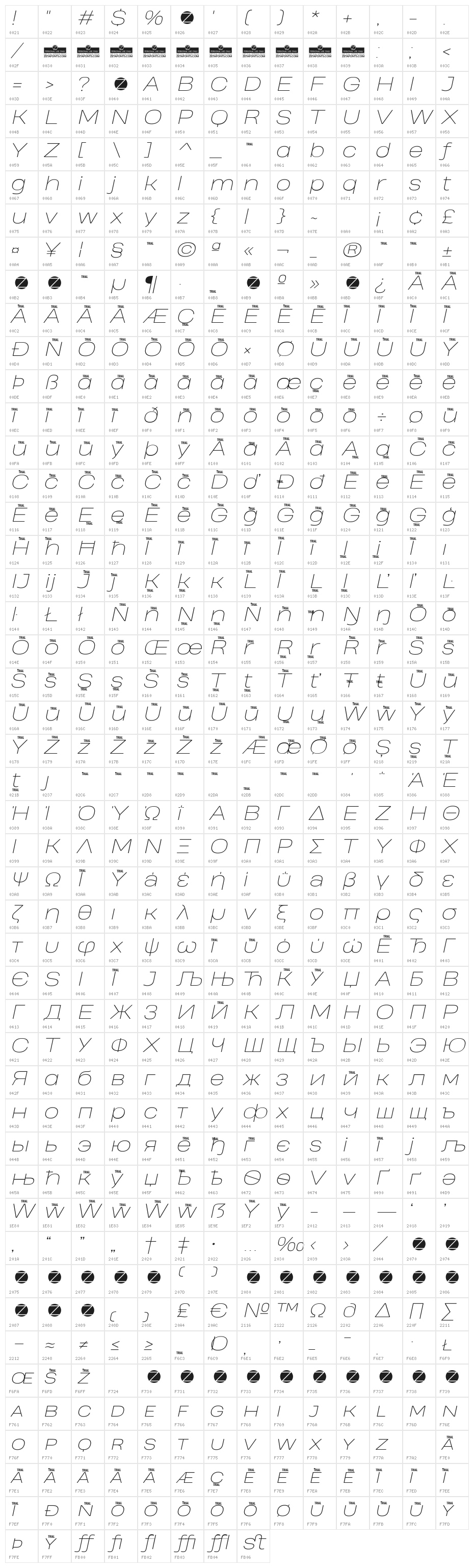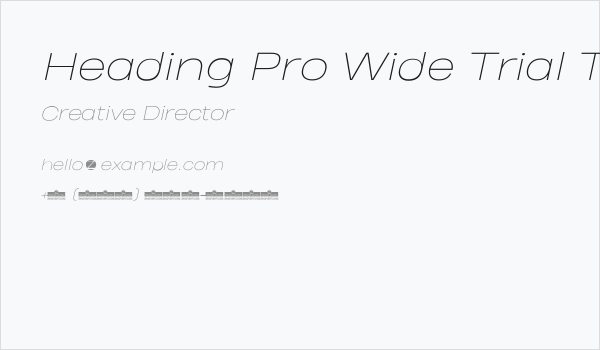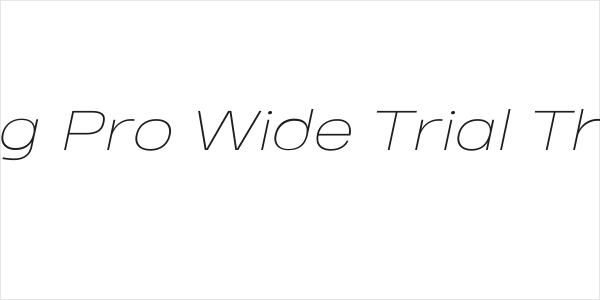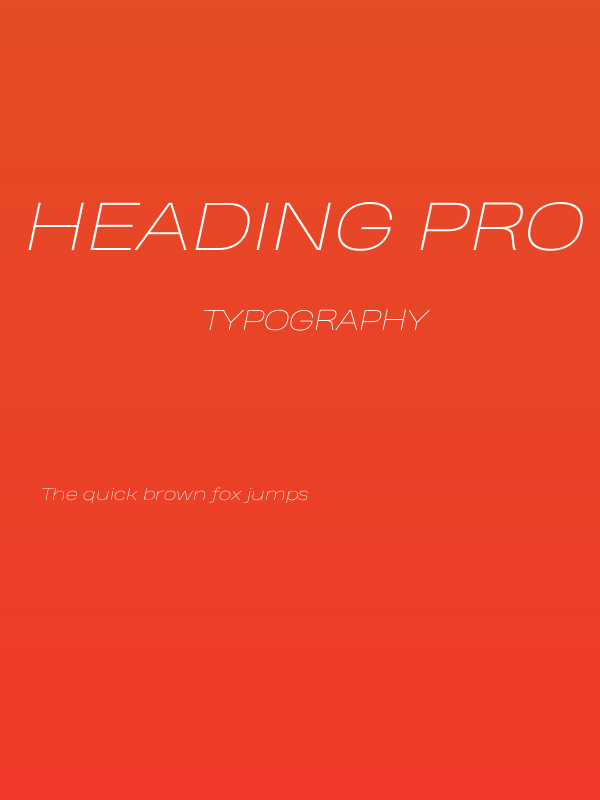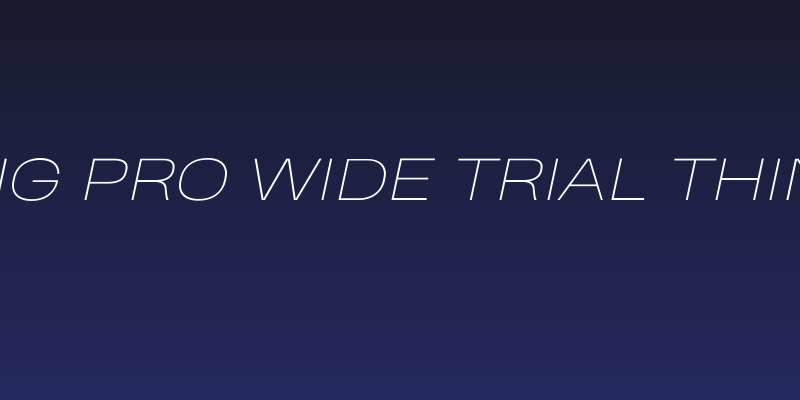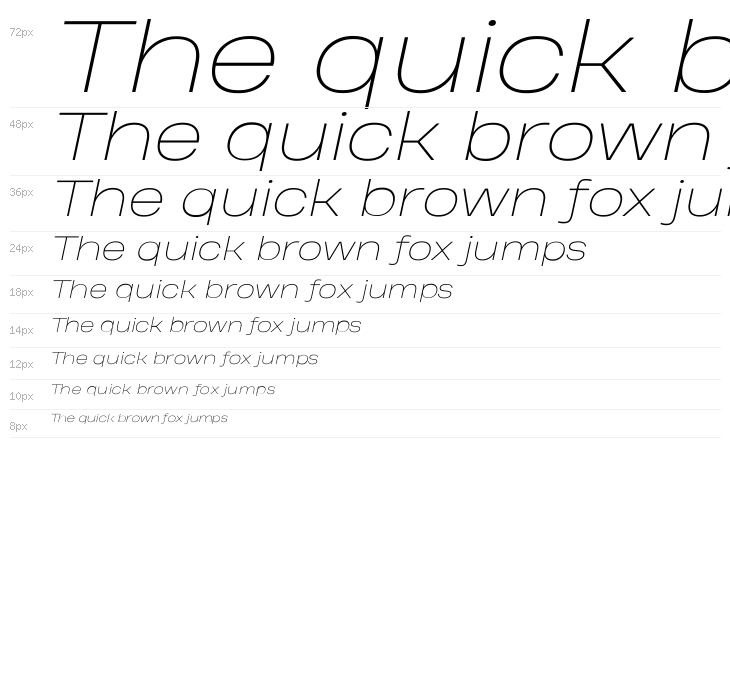
Heading Pro Wide Trial Thin Italic Font
Heading Pro Wide Trial Thin Italic Description
This font features a sleek, modern design with a thin, elegant stroke. The characters are italicized, giving a sense of motion and fluidity. The wide letterforms create an airy and open feel, making it suitable for contemporary design projects. The font maintains a consistent thin weight across all characters, enhancing its minimalist aesthetic. The uppercase and lowercase letters are well-proportioned, and the special characters are designed with the same attention to detail, ensuring a cohesive look throughout.
| Proposed Projects | Ideal for modern branding, fashion magazines, tech websites, and minimalist design projects. |